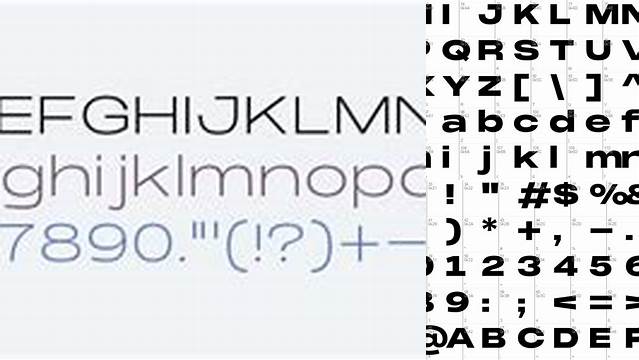
PP Monument Extended Font: Free Download Guide
Are you looking to elevate your design projects with a modern and impactful font? Look no further! The PP Monument Extended font family has become a favorite among designers for its bold aesthetic and versatility. In this comprehensive guide, we'll delve into everything you need to know about PP Monument Extended, including where to find it for free download, its characteristics, and how to best utilize it in your creative endeavors. So, let's dive in, guys, and explore this fantastic font!
What is PP Monument Extended?
PP Monument Extended is a sans-serif typeface known for its strong, geometric forms and extended proportions. This font exudes confidence and modernity, making it an excellent choice for headlines, logos, branding materials, and other design elements where you want to make a statement. The extended width of the characters gives it a unique visual presence that commands attention. The font family typically includes various weights, ranging from light to bold, offering flexibility in design applications. The clean lines and sharp angles contribute to its contemporary feel, while the extended letterforms add a touch of distinctiveness. PP Monument Extended is often favored for projects that require a modern and authoritative look, such as posters, websites, and editorial layouts. When considering a typeface that communicates strength and clarity, PP Monument Extended stands out as a top contender.
Key Characteristics of PP Monument Extended
- Bold and Impactful: This font is designed to grab attention with its strong, geometric forms.
- Extended Proportions: The wider characters give it a unique and modern look.
- Versatile: Suitable for headlines, logos, branding, and more.
- Multiple Weights: Typically includes various weights for added flexibility.
- Sans-serif: Clean and contemporary, perfect for modern designs.
Why Use PP Monument Extended in Your Designs?
When you're diving into the world of design, choosing the right font is like picking the perfect spice for your recipe β it can make or break the final dish. PP Monument Extended is that bold, flavorful spice that can elevate your projects from bland to bam! Let's be real, guys, in a world drowning in vanilla fonts, you need something that screams, "Hey, look at me!" And that's exactly what PP Monument Extended does. Its strong, extended letterforms are like the bodybuilders of the font world, flexing their muscles and demanding attention. Whether you're crafting a logo that needs to punch through the noise, designing a website that needs to grab visitors by the eyeballs, or creating a poster that needs to shout from the rooftops, this font has got your back. Think of it as the secret weapon in your design arsenal, the one you pull out when you need to make a statement, no ifs, ands, or buts. Plus, itβs not just about being loud; it's about being clear, confident, and contemporary. PP Monument Extended brings a modern edge to any project, making it look like it just stepped out of a high-end design studio. So, if you're ready to ditch the same-old, same-old and inject some serious personality into your work, PP Monument Extended is your go-to guy. Trust me, your designs will thank you for it.
Design Projects Where PP Monument Extended Shines
- Logos and Branding: Its strong presence makes it ideal for creating memorable brand identities.
- Headlines and Titles: Perfect for making a bold statement.
- Posters and Flyers: Grabs attention and conveys information effectively.
- Websites: Adds a modern and professional touch.
- Editorial Design: Works well in magazines and other publications.